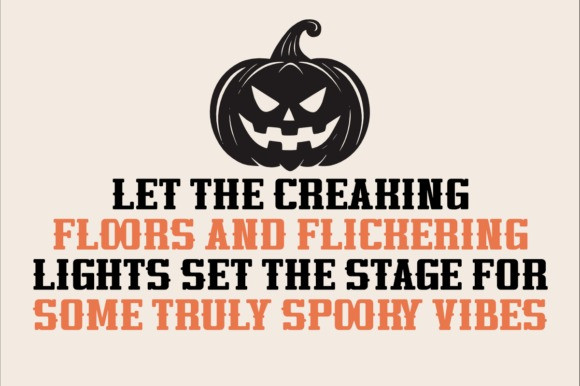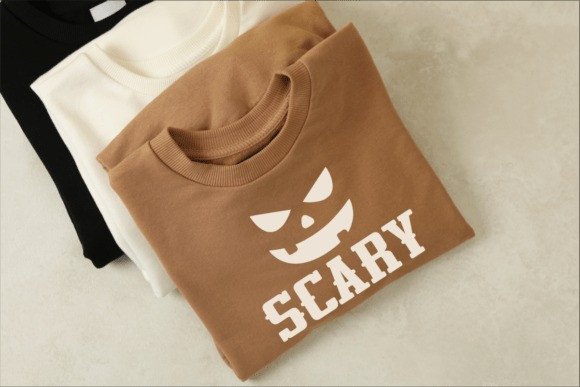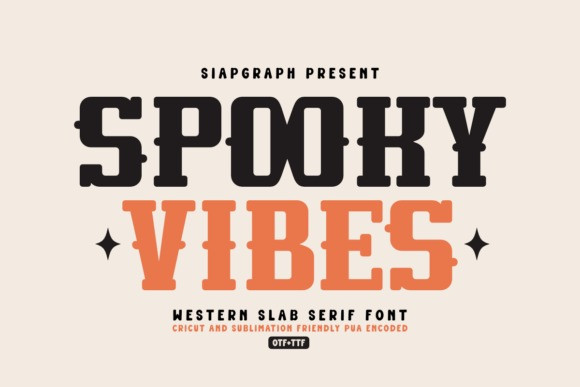
Spooky Vibes Font
Spooky Vibes Font is a bold and distinctive Western slab serif font designed to infuse your creative projects with a touch of rugged charm and vintage character. With its strong, blocky serifs and classic Western flair, this font is perfect for Print On Demand artists, sublimation designers, and Cricut crafters who want to make a powerful, rustic statement.
Whether you’re creating unique apparel, eye-catching signage, rustic home decor, or engaging digital graphics, Spooky Vibes brings a robust personality and impactful presence to every design. Fully PUA encoded and compatible with various design software and cutting machines like Cricut and Silhouette.